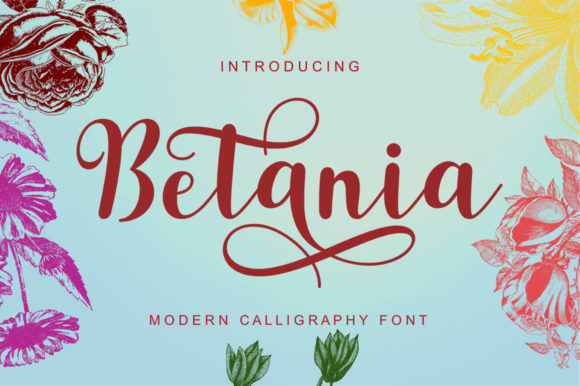
The Elusive Perfect Font: My Journey with Betania
I’ll never forget the countless hours I spent scrolling through font libraries, searching for the perfect addition to my design project. My client wanted a elegant and sophisticated look, but I was struggling to find a font that fit the bill. That was until I stumbled upon Betania, an elegant and flowing handwritten font that has since become a staple in my design toolkit.
A First Impression: What I Love About Betania
So, what makes Betania so special? Here are a few things that immediately caught my attention:
• ✨ Elegant and flowing handwritten design
• ✅ Varying baseline for a natural, organic feel
• ✅ Smooth lines and gorgeous glyphs
• ✅ Stunning alternates for added versatility
While Betania has quickly become one of my go-to fonts, it’s not without its quirks. Here are a few things to keep in mind:
• ✅ What I love: The font’s classy calligraphic influences and contemporary feel make it perfect for a wide range of projects.
• ⚠️ One thing to note: While the font is generally easy to use, some of the more advanced features may require a bit of experimentation to get the hang of.
• 🤔 A minor quirk: Some users may find that the font’s varying baseline can make it a bit tricky to use in certain design applications.
The Story Behind Betania: Designer Inspiration
While the true story behind Betania may be a mystery, it’s easy to imagine that the designer was inspired by the elegant calligraphy of the past. Perhaps they spent hours pouring over vintage manuscripts and lettering guides, searching for the perfect combination of classic and contemporary elements. Whatever the inspiration, the end result is a font that’s both timeless and fresh.
Q: Is Betania suitable for body text?
A: While Betania is a beautiful font, it’s best suited for headings and titles. Its elegant and flowing design may not be the best choice for body text, which requires a clearer and more legible font.